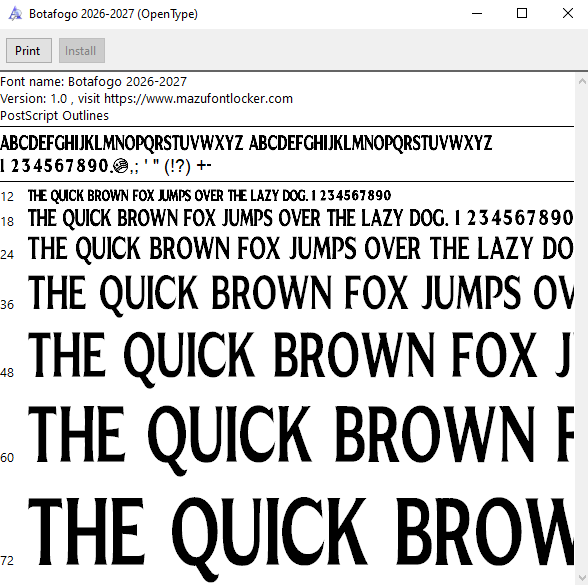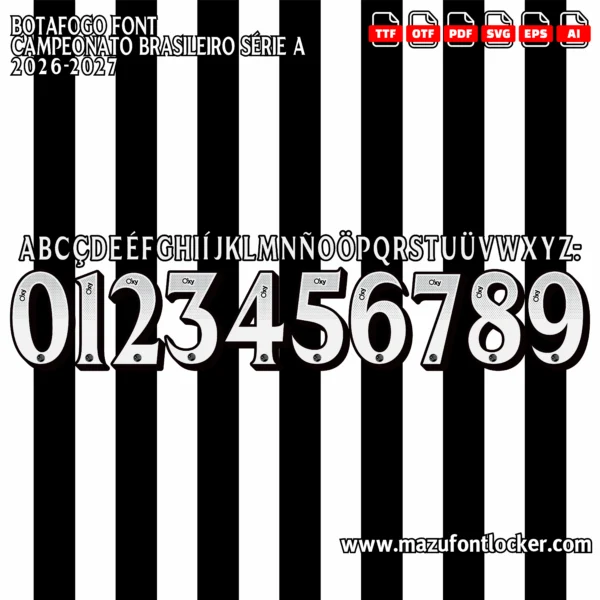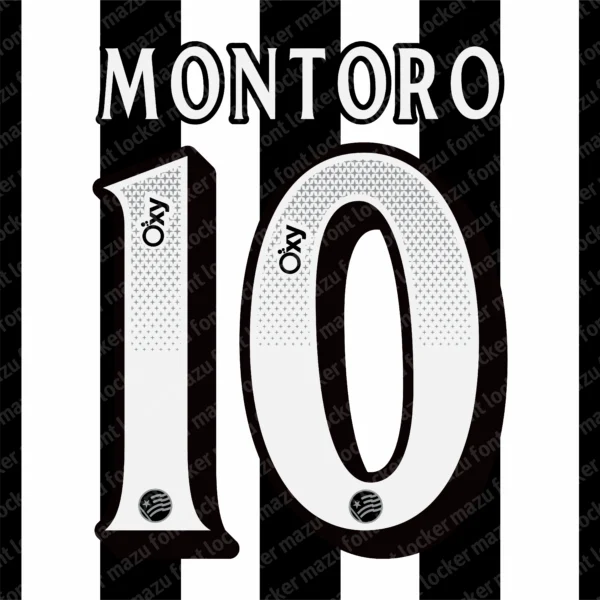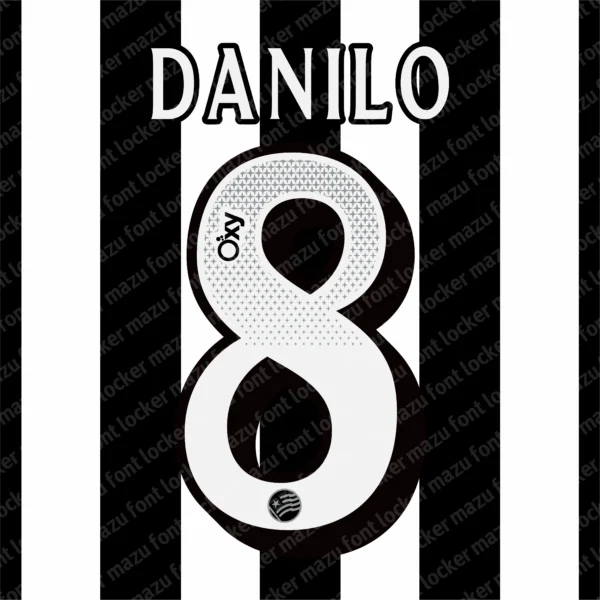
Botafogo 2026-2027 Font Vector – Legendary Fogão Masterpiece
This font captures the razor-sharp, thunderous lettering that embodies Botafogo’s proud club identity, rich Brazilian football heritage, iconic black-and-white tradition, and unstoppable fighting spirit — delivering premium quality and explosive energy for jersey mockups, football graphics, sports branding, and fan creations.
Botafogo 2026-2027 Font Vector – Fogão Heritage Typeface
The Botafogo 2026-2027 Font Vector is a premium typeface that accurately recreates the official match lettering worn by Botafogo during their 2026-2027 campaign. This high-quality vector font kit captures the bold, clean, and instantly recognizable typography that perfectly complements the club’s iconic black and white identity.
Designed for professional designers, football enthusiasts, and passionate Botafogo supporters, the Botafogo 2026-2027 Font Vector delivers exceptional authenticity for creating realistic jersey mockups, football merchandise, social media graphics, match posters, and custom fan artwork. Every character has been carefully recreated to match the powerful and precise visual style of one of Brazil’s most historic and passionate football clubs.
This font stands out thanks to its precise vector construction and authentic club-inspired styling. Every letter and numeral has been meticulously recreated to match the official shirt lettering used throughout the 2026-2027 season and associated campaigns. Whether you’re producing professional kit templates or creating eye-catching football content, the Botafogo 2026-2027 Font Vector delivers a genuine match-ready appearance inspired by the proud identity of the Fogão.
The lettering featured in the Botafogo 2026-2027 Font Vector combines clean geometric lines with powerful modern proportions. The result is a premium and highly readable typeface that reflects Botafogo’s fighting spirit, attacking football, resilience, and proud Brazilian heritage.
• Complete uppercase A–Z alphabet and numbers 0–9 in authentic Botafogo 2026-2027 style
• Recreate the distinctive look of Botafogo player names and squad numbers for creative projects